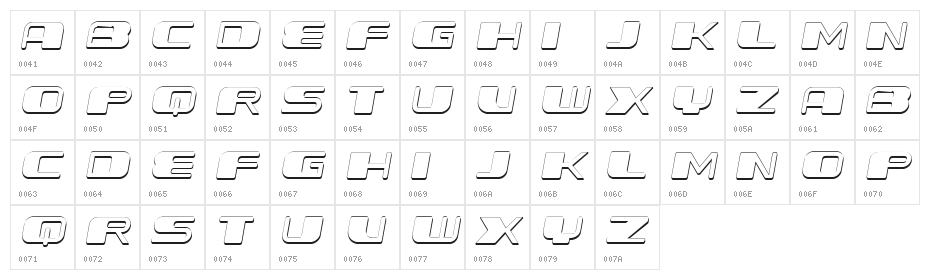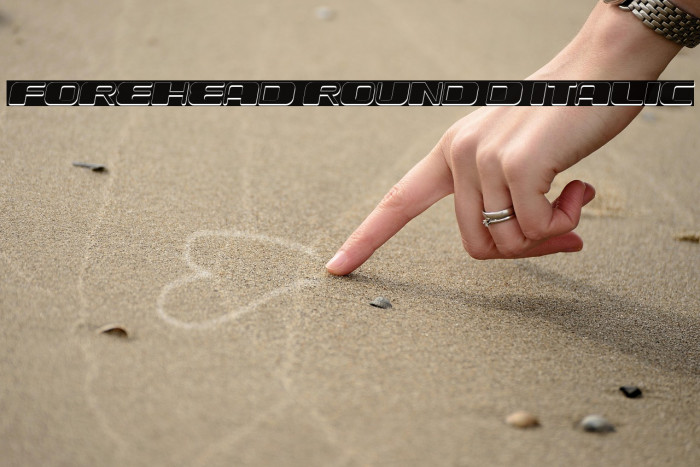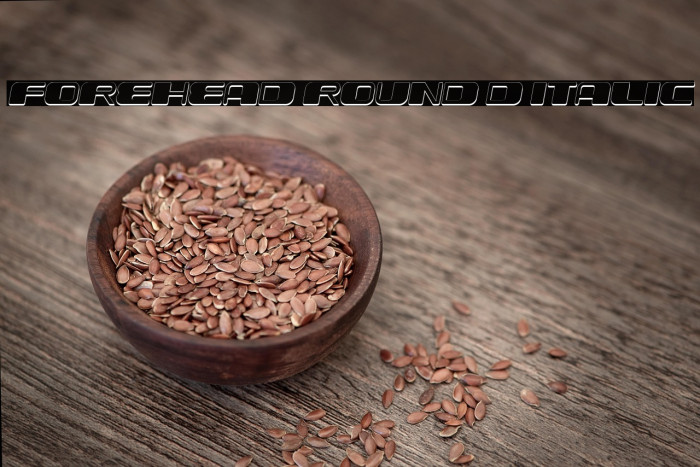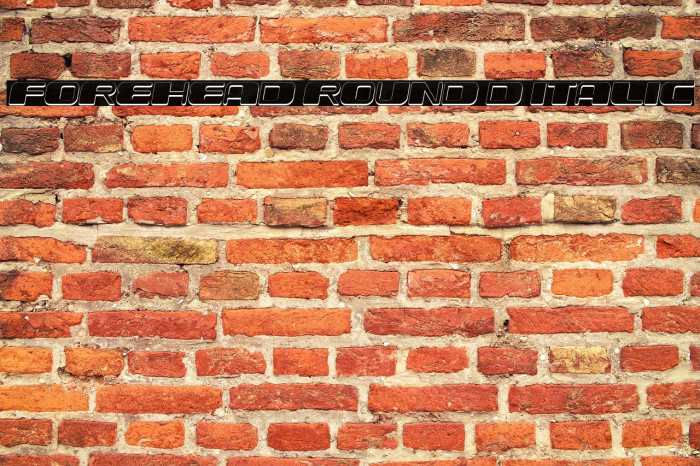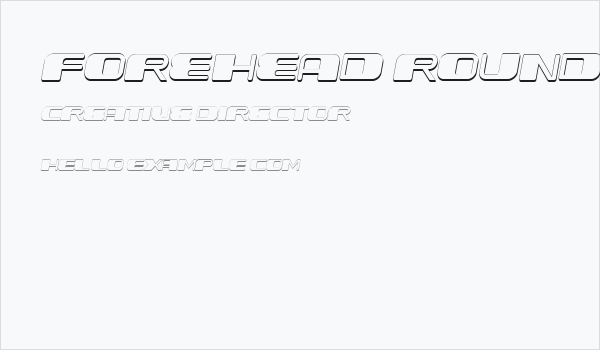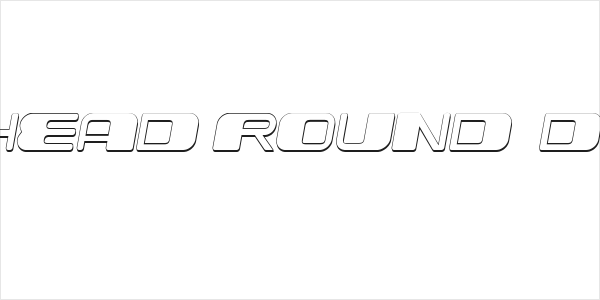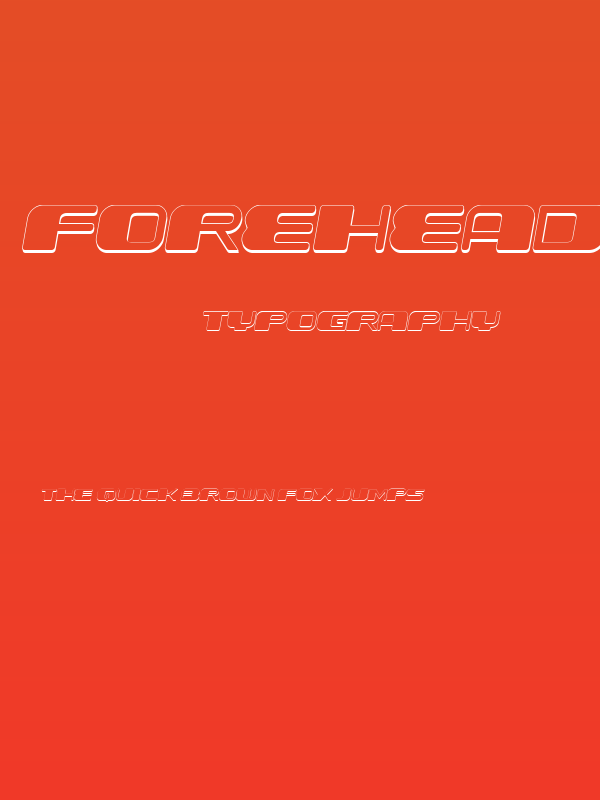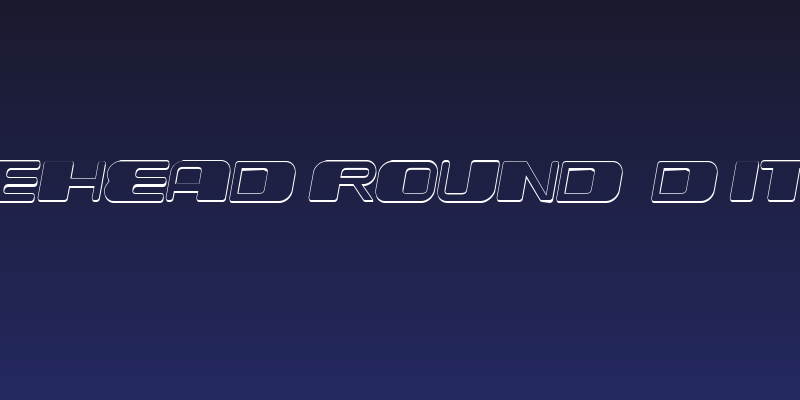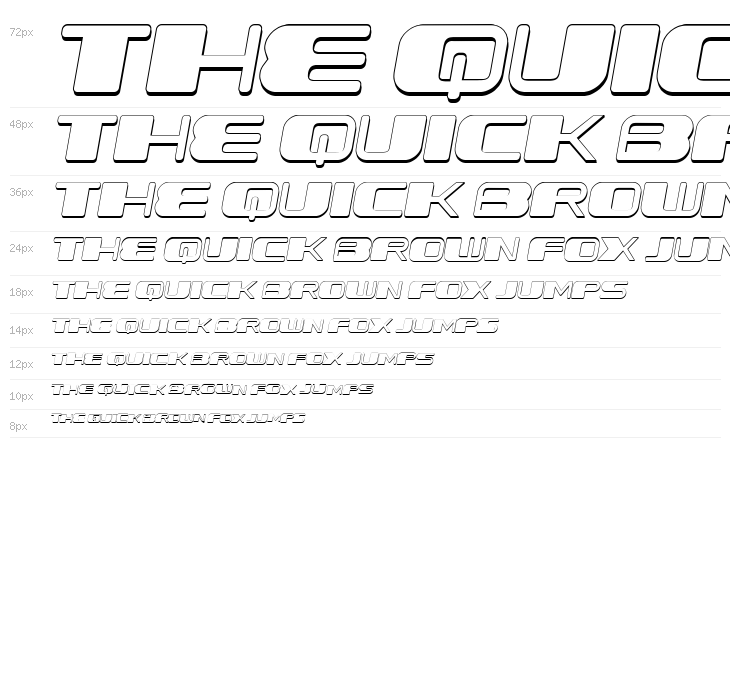
Forehead Round 3D Italic Font
Forehead Round 3D Italic Description
This font features a bold, three-dimensional appearance with rounded edges, giving it a futuristic and dynamic look. The italicized style adds a sense of movement and speed, making it ideal for modern and tech-oriented designs. The characters are uniformly spaced, maintaining a consistent flow across the text. The uppercase letters are prominent and eye-catching, while the lowercase letters maintain the same stylistic elements, ensuring coherence throughout. The font's unique 3D effect is achieved through a clever use of shading and outlines, enhancing its visual impact.
| Proposed Projects | Ideal for technology branding, video game titles, futuristic posters, and dynamic logo designs. |